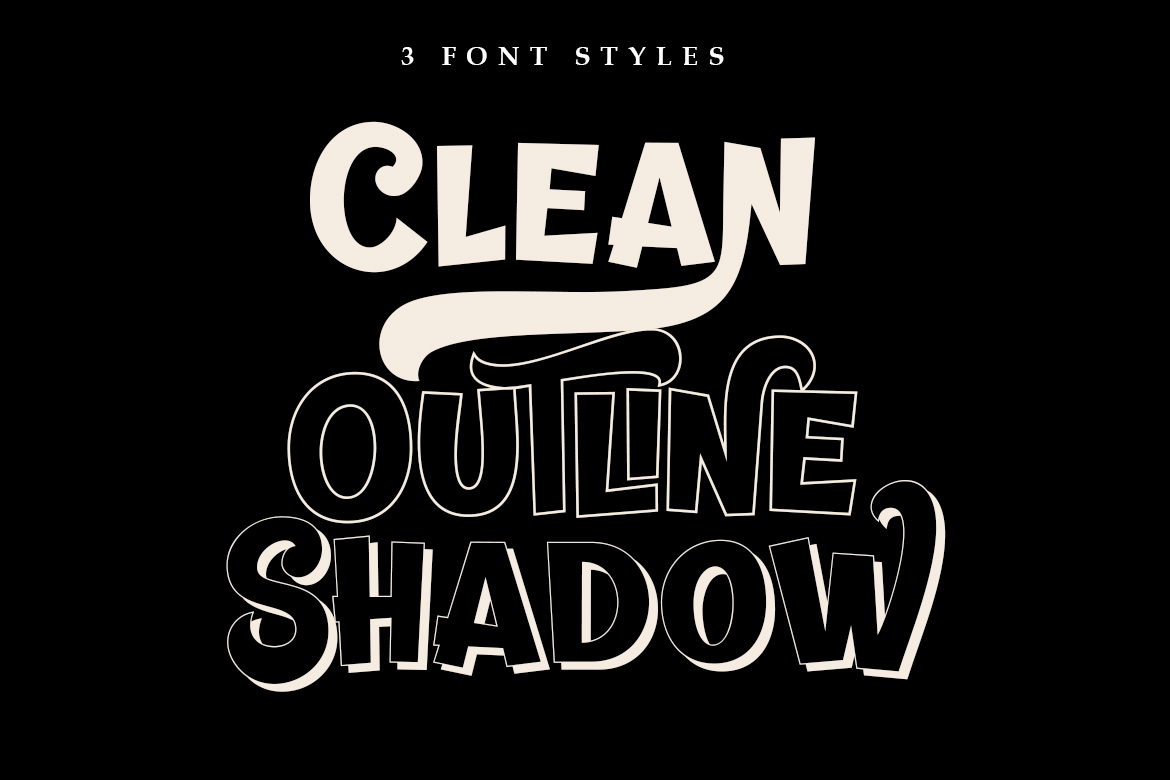
Banthink Retro Font
Banthink is a bold and playful display font packed with character and versatility. Featuring smooth curves, quirky letterforms, and dynamic swashes, it brings an energetic personality to any design. With three distinct styles—Clean, Outline, and Shadow—this typeface offers endless creative possibilities for bold titles, branding, and expressive typography.
Banthink includes a large selection of alternates and swashes, making it easy to customize your lettering for maximum impact. Whether you want a retro vibe, comic-inspired energy, or an attention-grabbing headline, Banthink is designed to make your text stand out with charm and style.
Font Features:
• Three Styles Included – Clean, Outline, and Shadow for versatile design use
• Lots of Alternates & Swashes – Multiple stylistic sets for custom letter designs
• OpenType Features – Stylistic alternates, swashes, and contextual variations